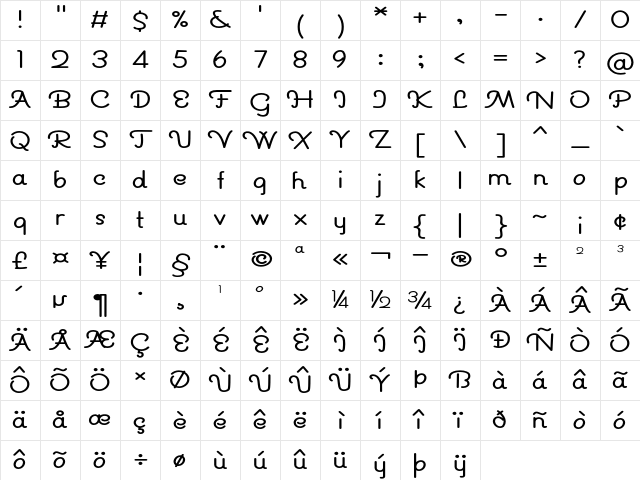
Marriwether Expanded Regular
Style: Expanded Regular
Marriwether Family
Marriwether Expanded Regular
Complete Marriwether Expanded Regular glyph index. Displaying only characters natively supported by Marriwether Expanded Regular font.
Design Context for Marriwether
Marriwether is a composed and adaptable typeface that performs quietly and consistently across a wide range of design contexts.